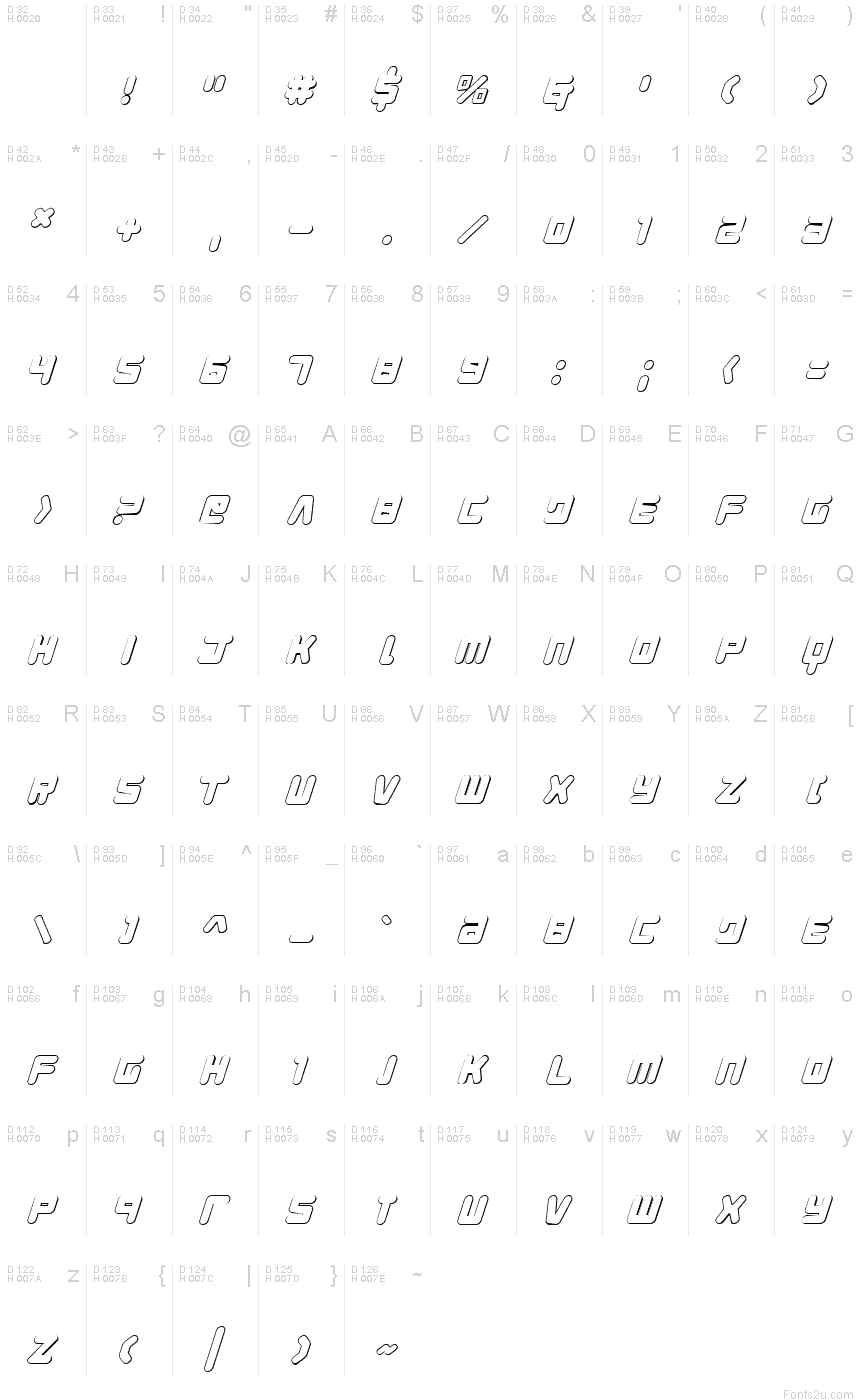
Young Techs 3D Italic by Daniel Zadorozny of Iconian Fonts is a free outlined techno display font with a broad, forward-leaning build and smooth, tubular proportions. Rounded outer corners soften its rigid futuristic geometry.
Designers working in gaming, motorsport, and youth entertainment will find its speed-driven shapes useful for bold title cards and event graphics. The hollow, layered strokes also suit apparel prints and packaging linked to electronics or action sports. For product branding, the continuous outline can function like a custom badge, especially for gear, accessories, and tech-focused labels.